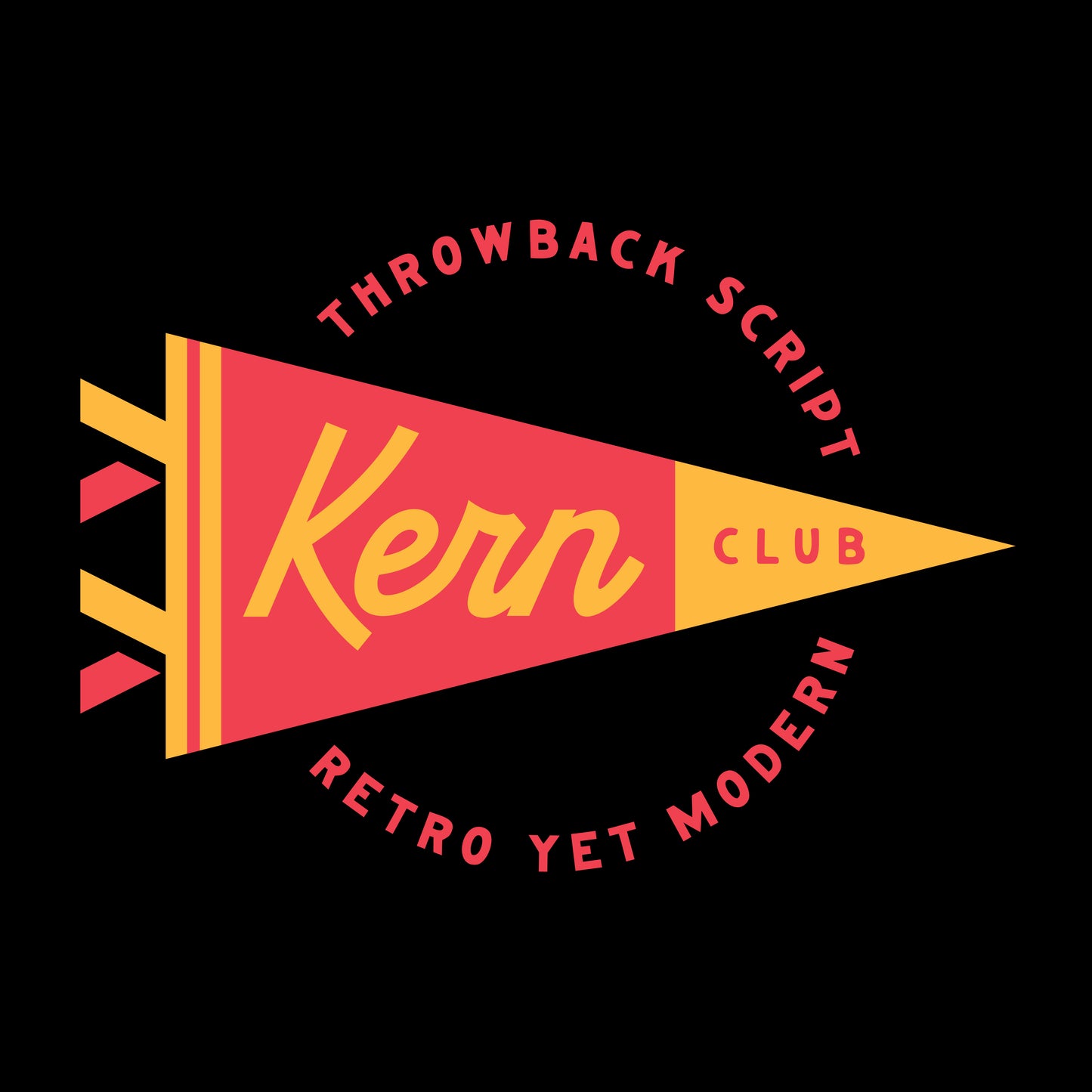
Throwback Script Font
Classic script font designed by Craig Wilson
- Lowercase Character Set a-z
- Include 30 Alternate characters
- Ligatures, Numerals & Simple punctuation